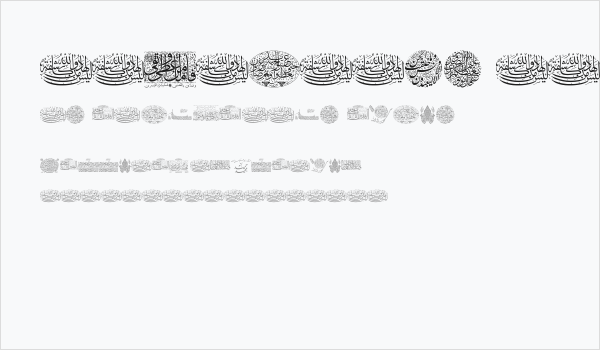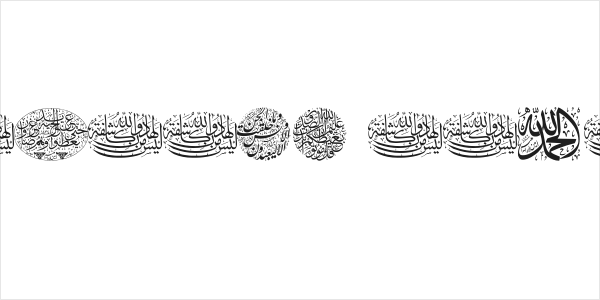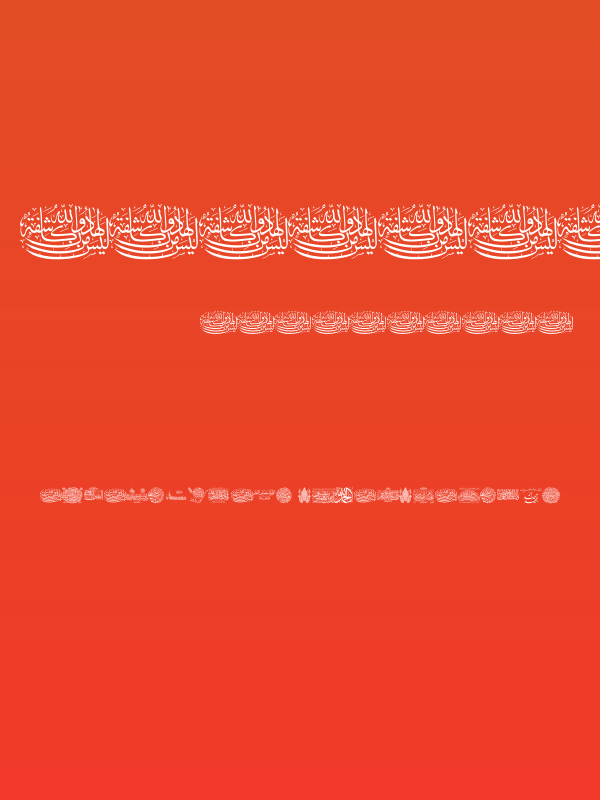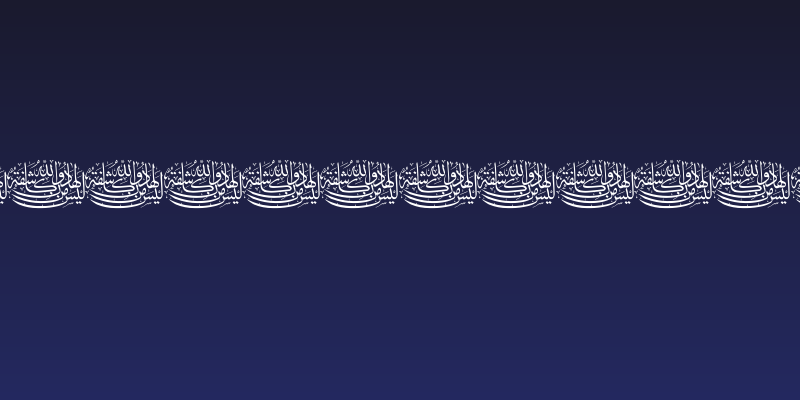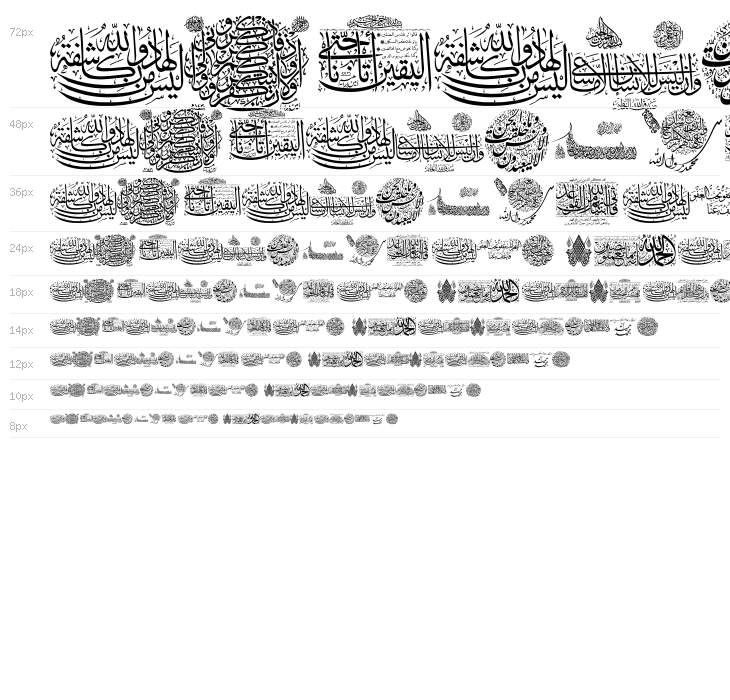
Aayat Quraan_036 Font
Aayat Quraan_036 Description
This script is a highly decorative and intricate Arabic calligraphy style, often used in religious texts and artistic expressions. The characters are elegantly intertwined, with flowing curves and elaborate flourishes that create a sense of movement and grace. The script is densely packed, with each letter seamlessly connecting to the next, forming a continuous and harmonious line of text. The overall appearance is both ornate and balanced, showcasing the beauty and complexity of traditional Arabic calligraphy.
| Overall Style | Traditional |
| Use Case | Artistic calligraphy, religious texts, decorative designs. |
| Proposed Projects | Ideal for religious texts, artistic calligraphy pieces, and decorative designs that require a traditional and elegant Arabic script. |